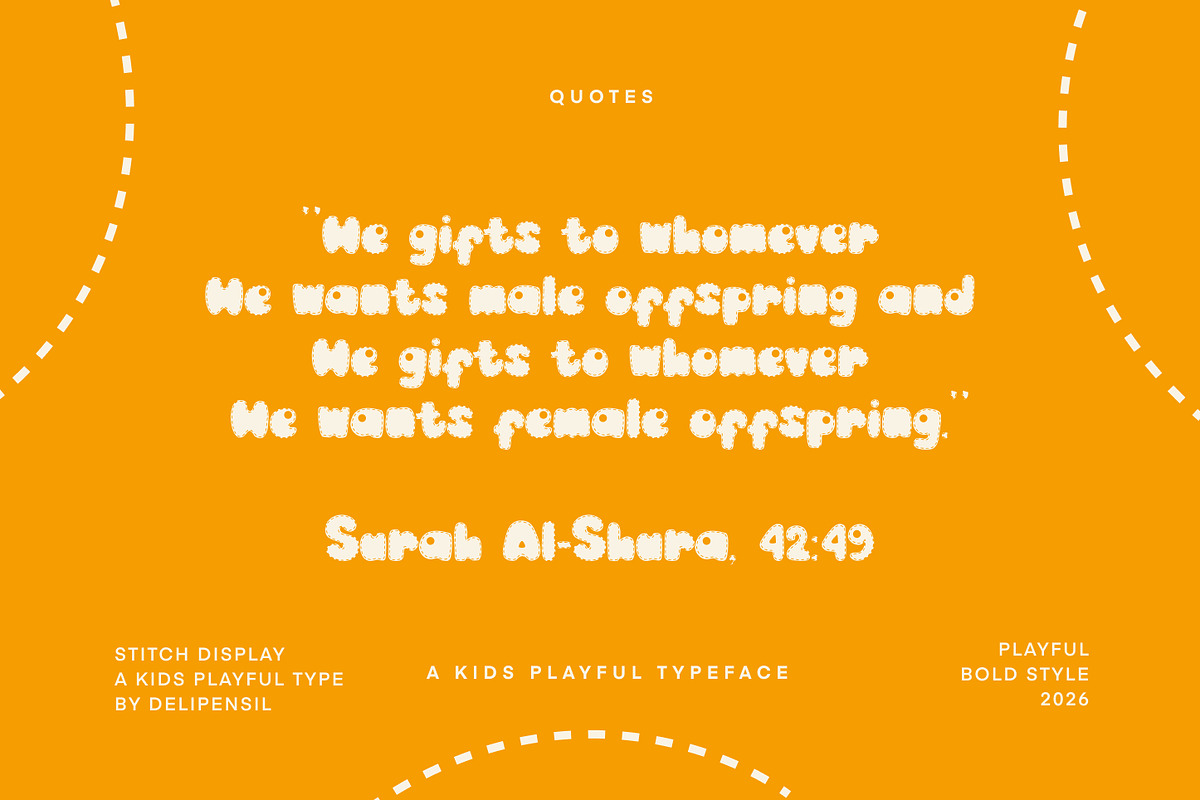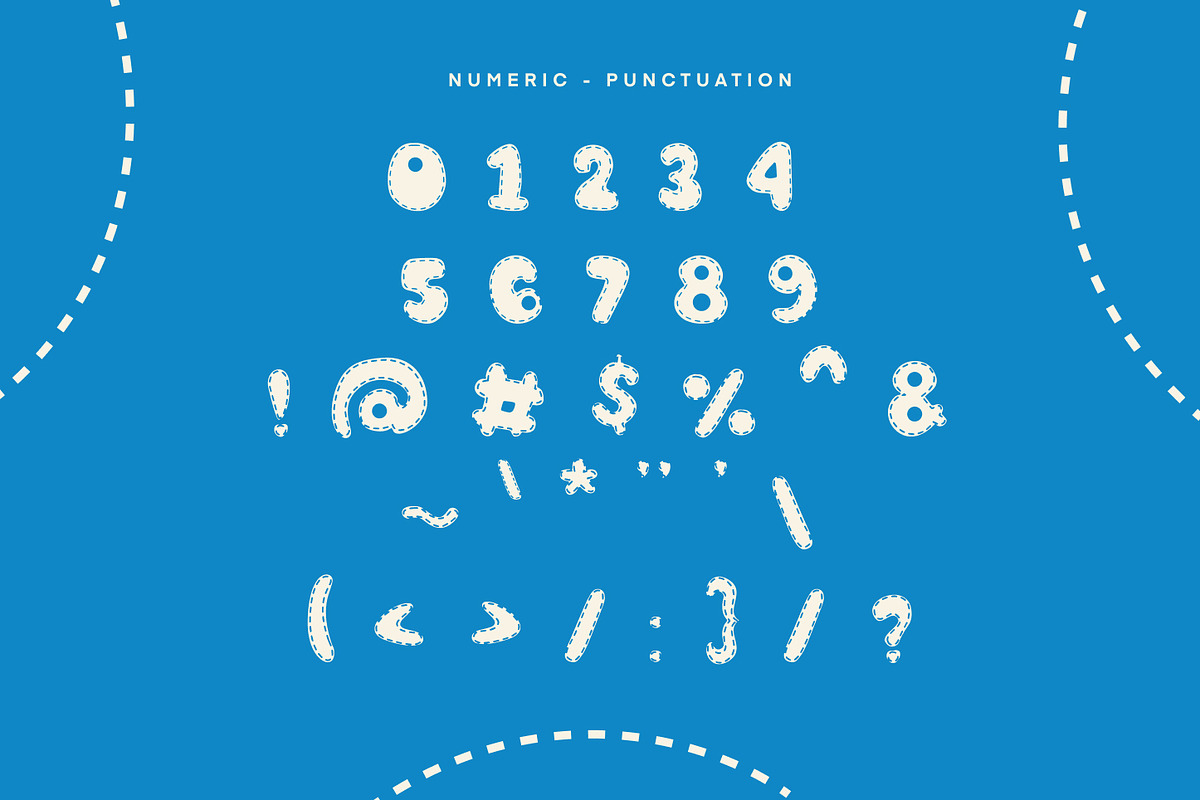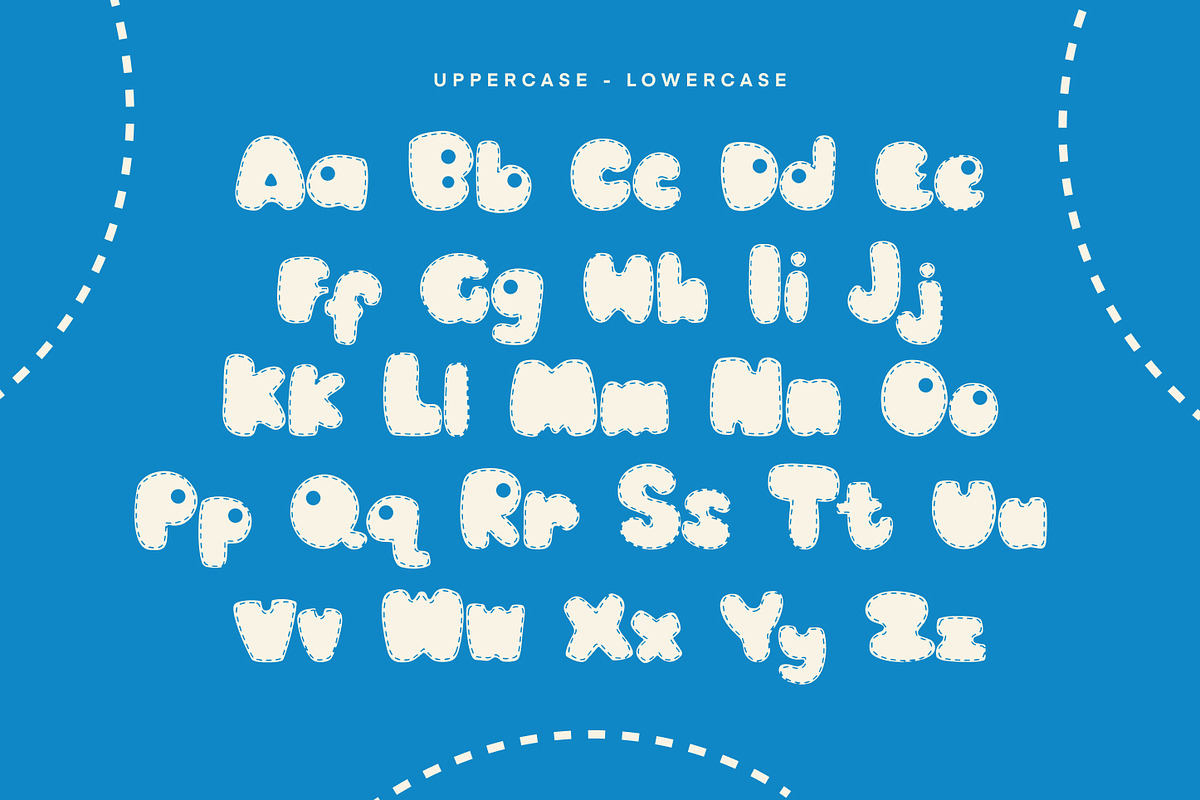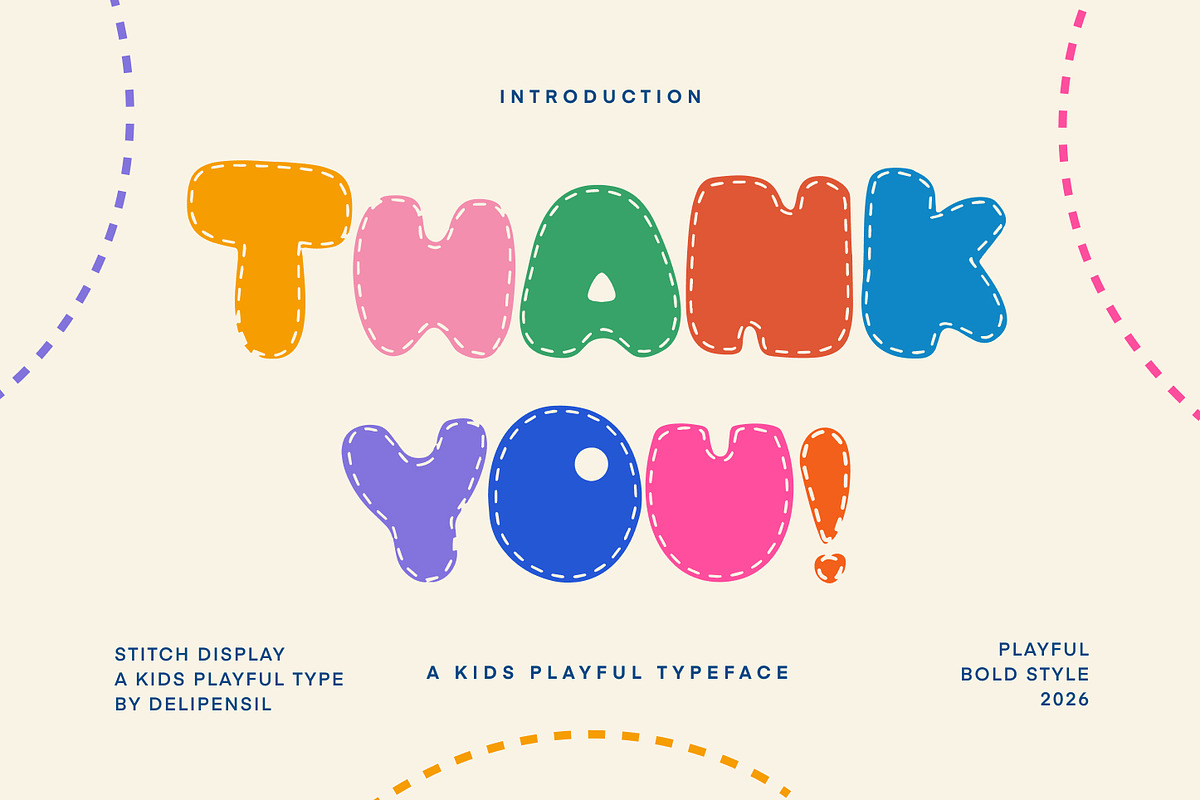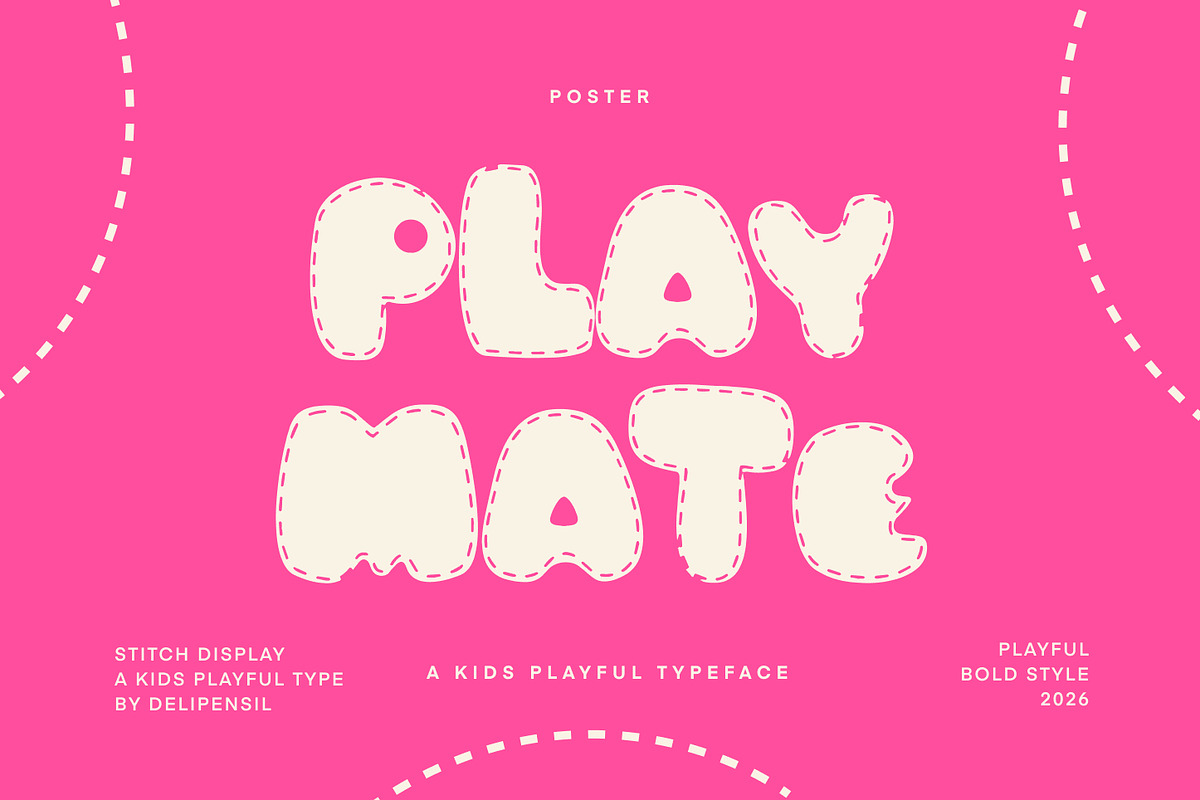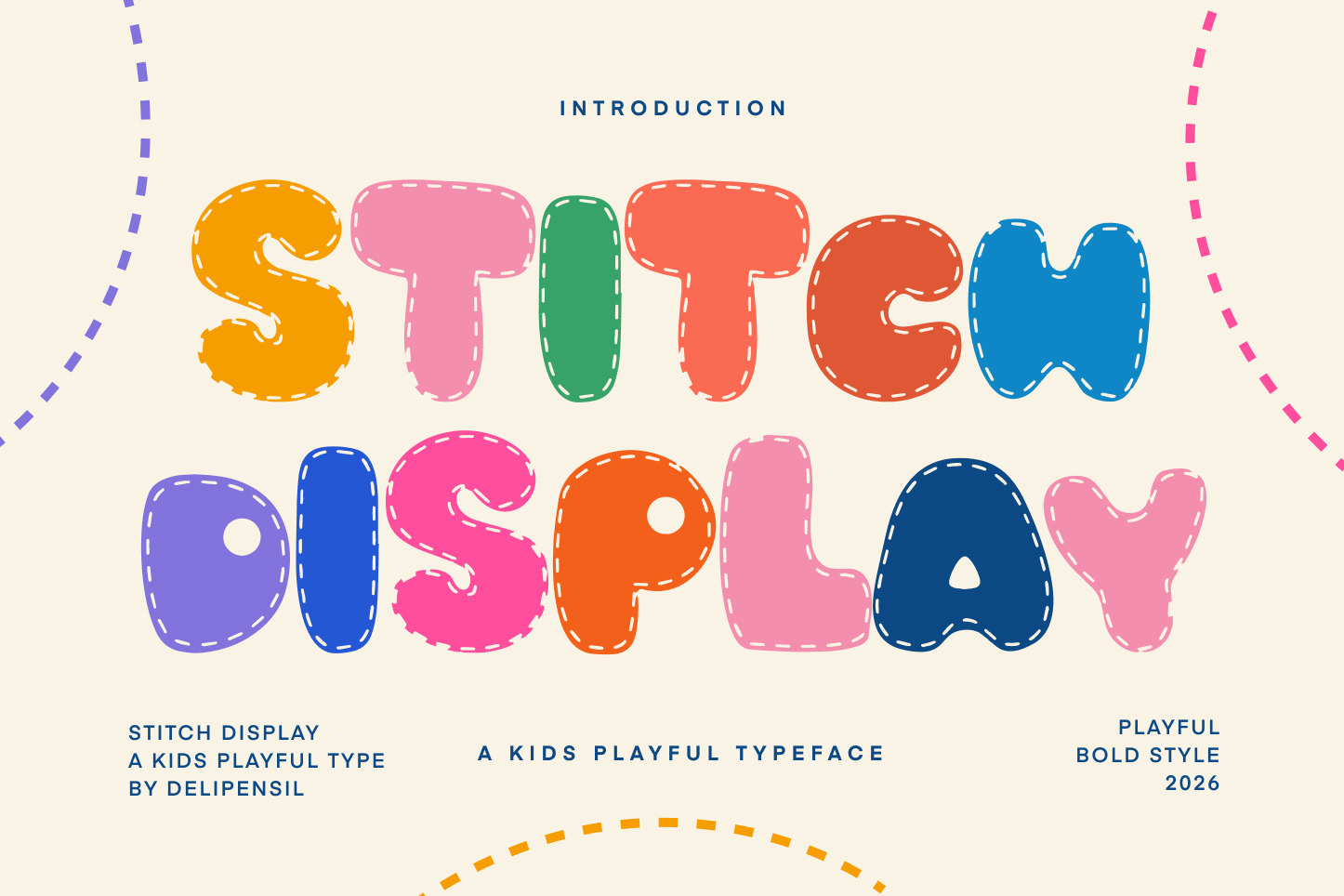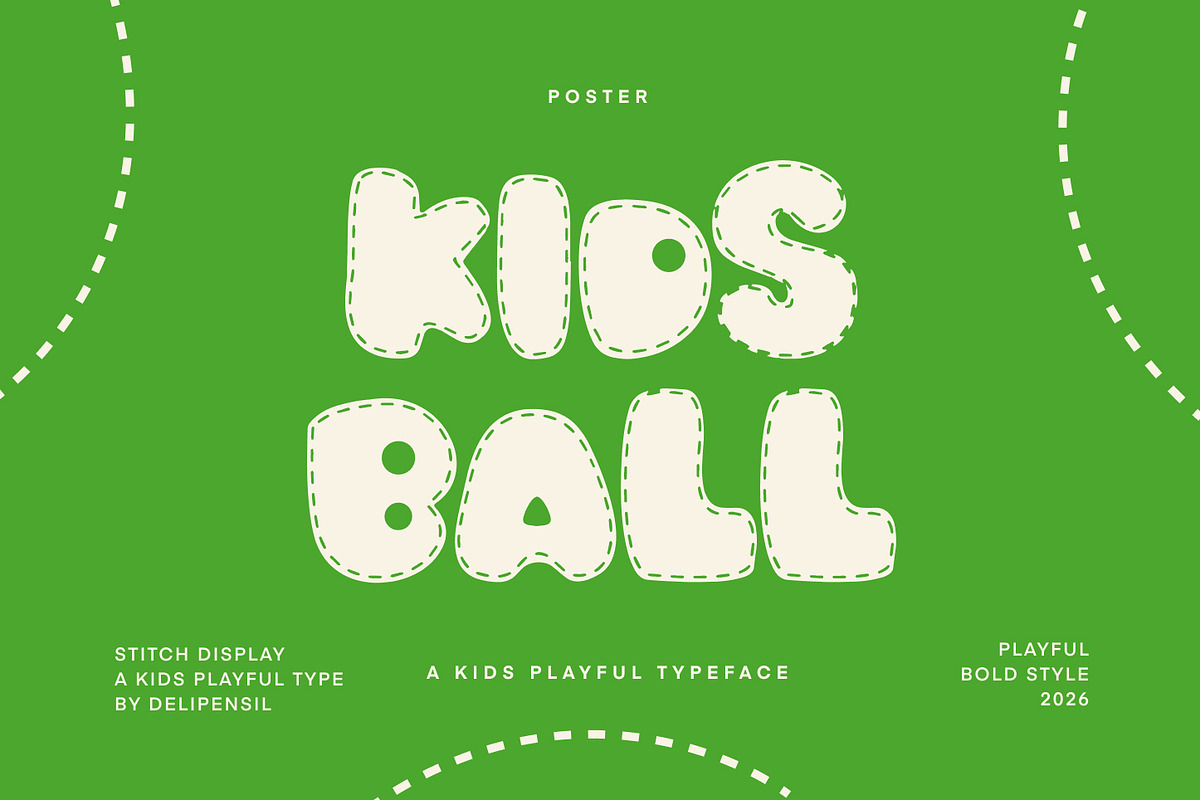
Stitch Display - Typeface
Bismillah, Introduction Stitch Display is a playful and bold display typeface designed to bring a fun, cheerful, and handcrafted feeling
Its bold and friendly appearance makes Stitch Display stand out while keeping your designs warm, colorful, and full of personality.
Bring a playful stitched touch to your next creative project with Stitch Display!